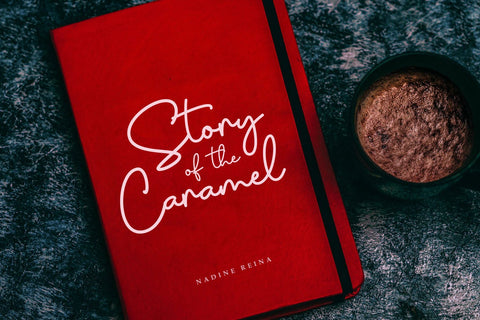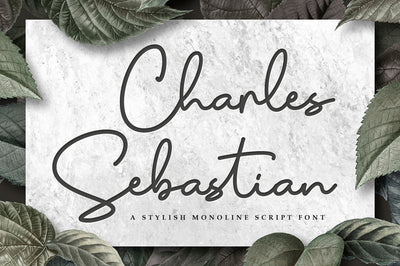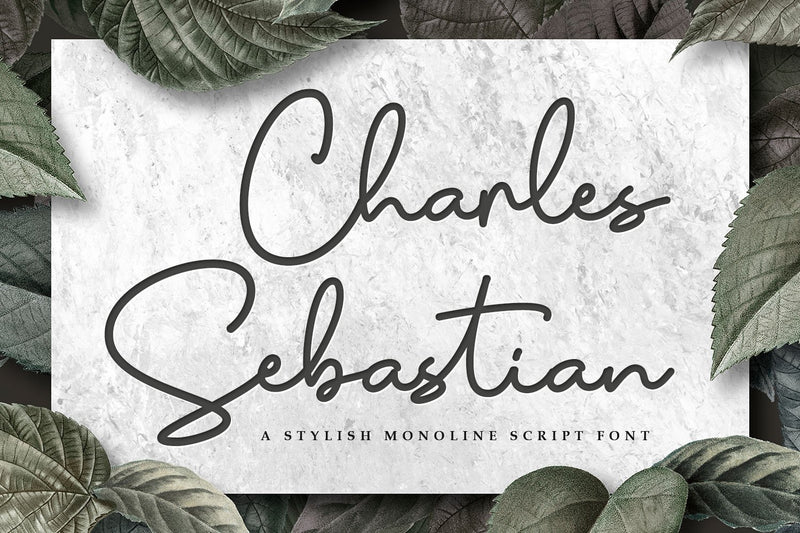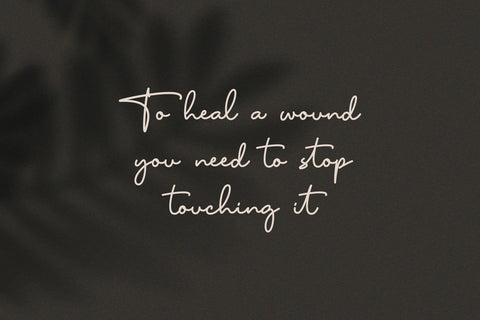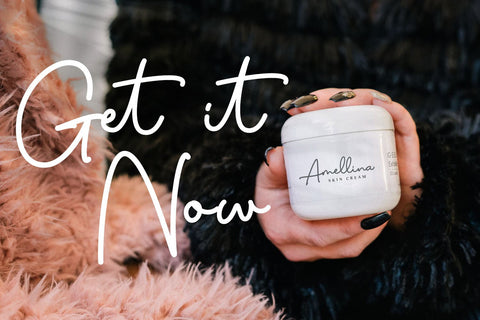
Charles Sebastian - Monoline Script Font
Charles Sebastian is a beautiful handwritten script font. Perfect for making elegant stylish statements - or adding a touch of class to your designs. This script has a multitude of natural-looking ligatures in its OpenType features - making the font look as close to natural handwriting as possible.
Charles Sebastian is perfect for many different projects such as logos & branding, invitation, stationery, wedding designs, social media posts, advertisements, product packaging, product designs, label, photography, watermark, special events, or anything.